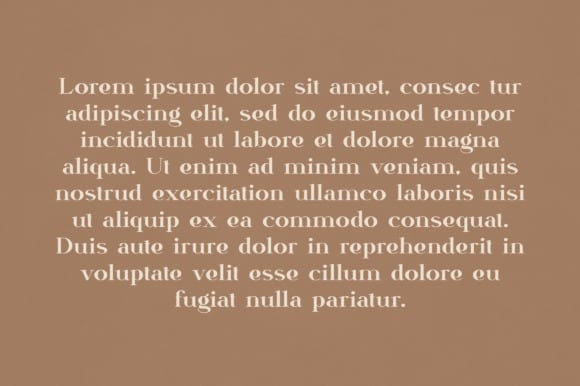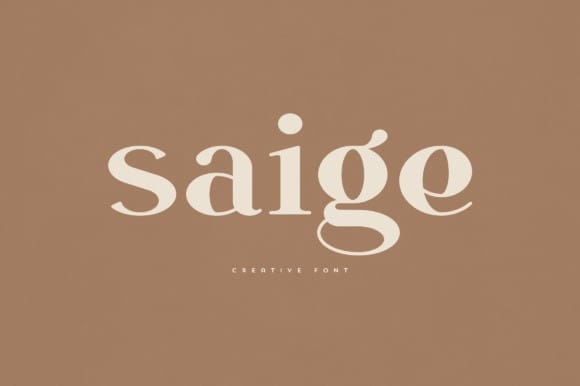
Saige Font
Saige Font is an elegant and versatile font that will make your typography truly unique! It will enchant every logo, branding, headline, or plain text!